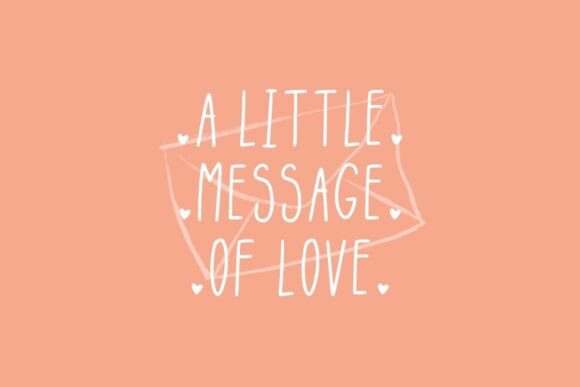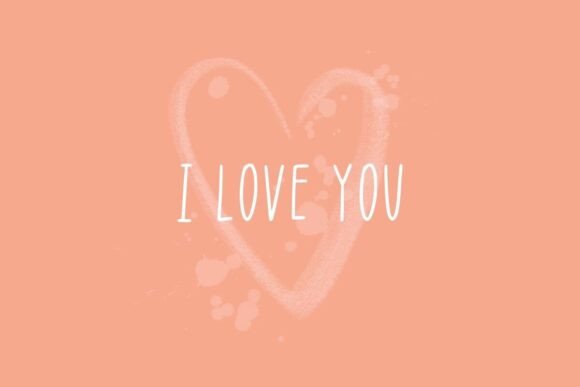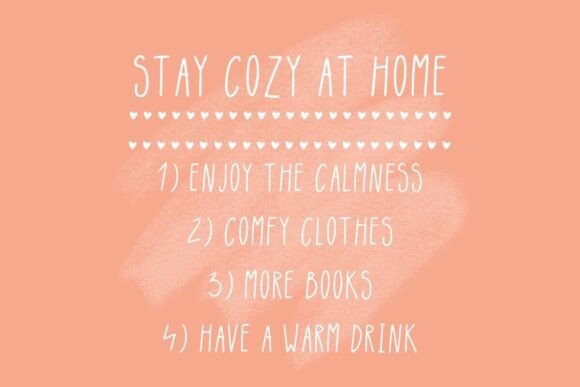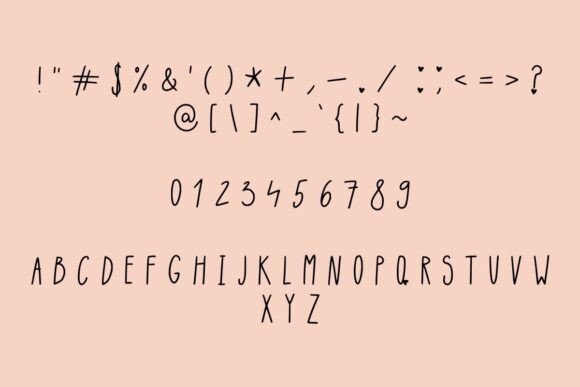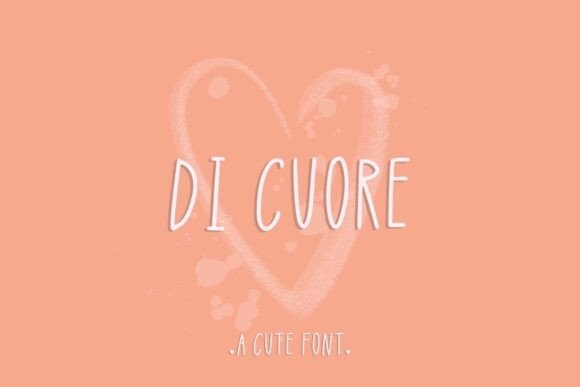
Discover the Charm of Di Cuore Font: Elevate Your Designs with a Touch of Whimsy and Elegance
In the world of typography, few fonts manage to strike a balance between whimsy and elegance as effortlessly as Di Cuore. This delightful handwritten English font has captured the hearts of designers and crafters alike with its unique blend of organic strokes and sophisticated charm. Whether you’re working on invitations, posters, branding, or any other creative project, Di Cuore is the perfect choice to infuse your work with a personal touch and a dash of creativity.
The Unique Characteristics of Di Cuore Font
Di Cuore’s standout feature is its handwritten style, which exudes warmth and character. The font’s organic strokes and subtle imperfections give it a distinctly human feel, reminiscent of handwritten notes and letters. This makes it an excellent choice for designs that aim to convey a sense of personality and charm. The font’s unique characteristics include:
• Handwritten style: Di Cuore’s handwritten style gives it a personal and relatable feel, making it perfect for designs that require a touch of warmth and character.
• Organic strokes: The font’s organic strokes and subtle imperfections add to its charm, giving it a distinctly human feel.
• Whimsical yet elegant: Di Cuore strikes the perfect balance between whimsy and elegance, making it suitable for a wide range of creative projects.
Perfect for a Variety of Creative Projects
Di Cuore’s versatility makes it an excellent choice for a wide range of creative projects. Whether you’re designing:
• Invitations: Di Cuore’s elegant and whimsical style makes it perfect for wedding invitations, birthday invitations, and other special occasion invites.
• Posters: The font’s bold and eye-catching style ensures that your posters stand out and grab attention.
• Branding: Di Cuore’s unique and memorable style makes it an excellent choice for branding and packaging designs.
• Digital designs: The font’s clear and legible style ensures that it works well in digital designs, including social media graphics, email headers, and more.
Enhance Your Designs with Di Cuore’s Playful yet Sophisticated Aesthetic
Di Cuore’s playful yet sophisticated aesthetic makes it an excellent choice for designers and crafters looking to add a touch of personality to their work. The font’s unique style:
• Adds character: Di Cuore’s unique style adds character and personality to your designs, making them stand out from the crowd.
• Conveys warmth: The font’s warm and inviting style conveys a sense of warmth and charm, making it perfect for designs that aim to evoke an emotional response.
• Ensures legibility: Despite its playful style, Di Cuore remains clear and legible, ensuring that your text is easy to read and understand.
Why Choose Di Cuore Font?
With so many fonts to choose from, why should you choose Di Cuore? Here are just a few reasons:
• Unique style: Di Cuore’s unique style sets it apart from other fonts, making it an excellent choice for designers and crafters looking to add a touch of personality to their work.
• Versatility: The font’s versatility makes it suitable for a wide range of creative projects, from invitations and posters to branding and digital designs.
In conclusion, Di Cuore is a delightful handwritten English font that combines whimsy and elegance, making it perfect for a variety of creative projects. Its unique, organic strokes evoke a personal touch, ideal for invitations, posters, and branding that seeks to convey warmth and charm. With a playful yet sophisticated aesthetic, Di Cuore enhances both print and digital designs, ensuring your text stands out with character and style. Whether you’re a designer or crafter, Di Cuore is an excellent choice for anyone looking to infuse their work with creativity and a handmade feel.